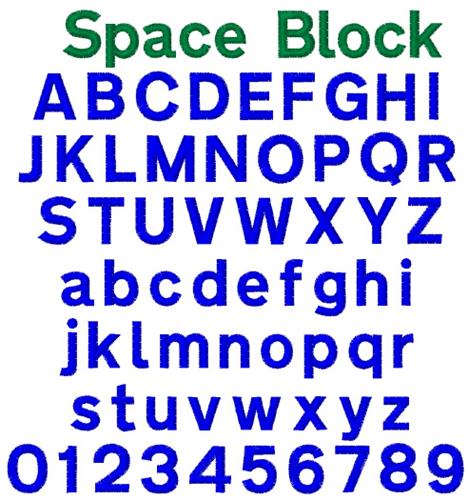
Internet Stitch is happy to present Space Block machine embroidery font which has Classic block machine embroidery font with smooth, filled letters, great for team apparel like jackets or caps. Available in ELP format. included. If you would like to view more embroidery fonts and alphabets please search our embroidery fonts page.